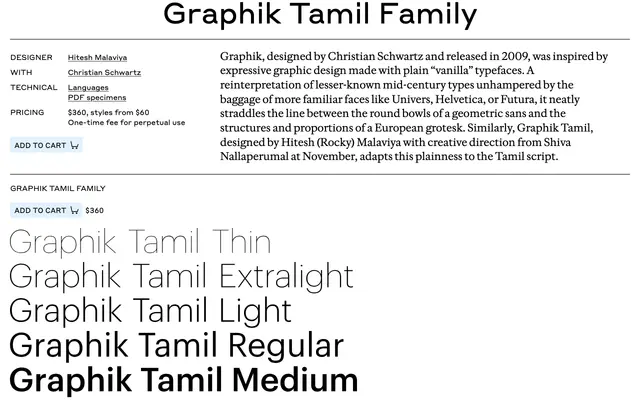
Graphik Tamil
A Tamil companion to Graphik, translating Schwartz's mid-century sans into a calm, plain Tamil for editorial and brand work.
A Tamil extension of Commercial Type's Graphik system, designed by Hitesh (Rocky) Malaviya with creative direction from Shiva Nallaperumal at November. Nine weights run from Thin and Extralight up to Black and Super alongside a matching Latin, giving designers the same plain, mid-century voice across scripts. Suits global identity, editorial and publishing systems where Tamil needs to sit confidently next to Graphik in Latin.
Commercial Type position Graphik Tamil as a Tamil companion to Christian Schwartz's Graphik (2009), a sans inspired by lesser-known mid-century types that sits between geometric round bowls and European grotesk proportions. Hitesh (Rocky) Malaviya designed the Tamil with creative direction from Shiva Nallaperumal at November.